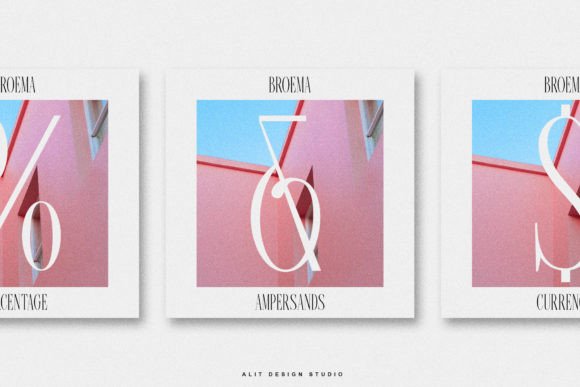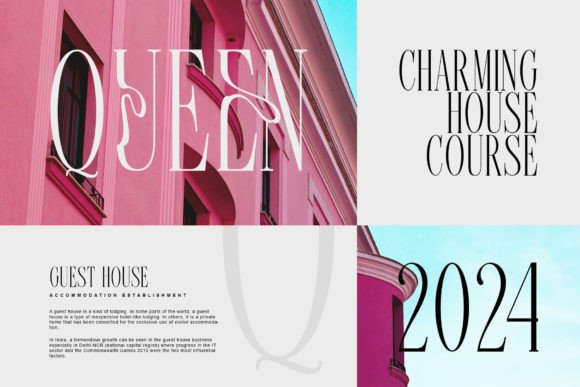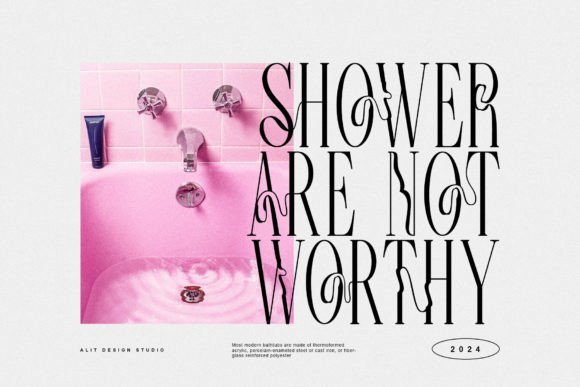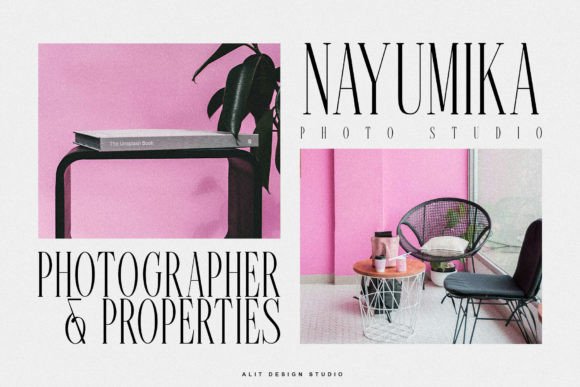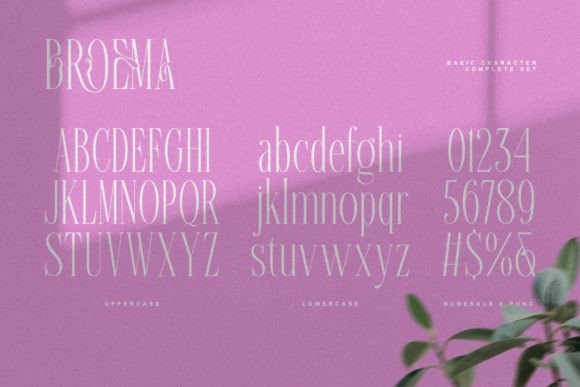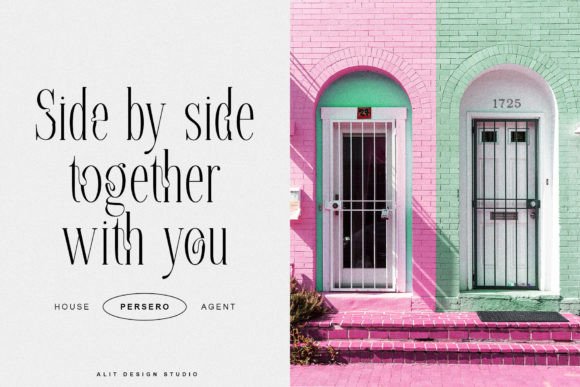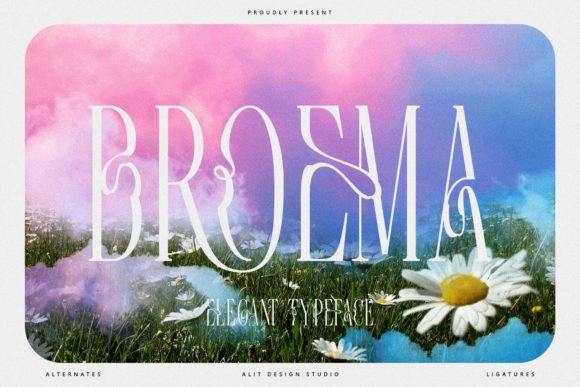
Discover the Allure of Contemporary Design with Broema Typeface
In the ever-evolving world of typography, a new star has emerged to redefine the boundaries of modern design. Broema Font, a contemporary serif typeface, has been making waves in the design community with its unique blend of elegance and fluid motion. Crafted with precision and artistry, Broema stands out with its distinctive letterforms that gracefully sway like ribbons, infusing each character with a sense of sophistication and refinement.
The Birth of Broema: A Story of Artistry and Precision
Broema Typeface is the brainchild of a meticulous designer who sought to create a font that would marry the classic elements of serif typography with the dynamism of modern design. The result is a typeface that exudes a sense of luxury and poise, making it an ideal choice for designers and crafters looking to elevate their projects. Each letterform in Broema has been carefully crafted to convey a sense of fluid motion, as if the characters are dancing across the page.
Key Features of Broema Typeface
- Distinctive Letterforms: Broema’s letterforms are uniquely designed to create a sense of fluid motion and elegance. The characters are carefully crafted to flow smoothly into one another, making it perfect for body text and headlines.
- Modern Serif Design: Broema’s serif design is both classic and modern, making it versatile enough to be used in a wide range of applications, from luxury branding to editorial design.
- High Legibility: Despite its elegant design, Broema remains highly legible, even at smaller font sizes. This makes it an excellent choice for designers who want to create beautiful, readable text.
- Multilingual Support: Broema supports multiple languages, making it a great choice for designers working on international projects.
Applications of Broema Typeface
Broema’s versatility and elegance make it suitable for a wide range of applications, including:
- Luxury Branding: Broema’s sophisticated design makes it an excellent choice for luxury brands looking to create a high-end visual identity.
- Editorial Design: Broema’s elegant design and high legibility make it perfect for editorial design, including magazines, newspapers, and books.
- Packaging Design: Broema’s unique letterforms and fluid motion make it an excellent choice for packaging design, particularly for high-end products.
- Digital Design: Broema’s clean and elegant design makes it suitable for digital applications, including websites, mobile apps, and digital advertising.
Tips for Using Broema Typeface
To get the most out of Broema Typeface, here are a few tips:
- Use it as a Headline Font: Broema’s elegant design makes it perfect for headlines and titles. Use it to create a striking visual impact and draw attention to your content.
- Pair it with a Sans-Serif Font: Broema pairs well with sans-serif fonts, creating a beautiful contrast between elegant and modern design.
- Experiment with Font Sizes: Broema’s high legibility makes it suitable for use at a wide range of font sizes. Experiment with different sizes to create visual interest and hierarchy.
Broema Typeface is a game-changer in the world of typography, offering a unique blend of elegance, sophistication, and fluid motion. Its versatility and high legibility make it suitable for a wide range of applications, from luxury branding to editorial design. Whether you’re a designer, crafter, or simply someone who appreciates beautiful typography, Broema is definitely worth checking out.